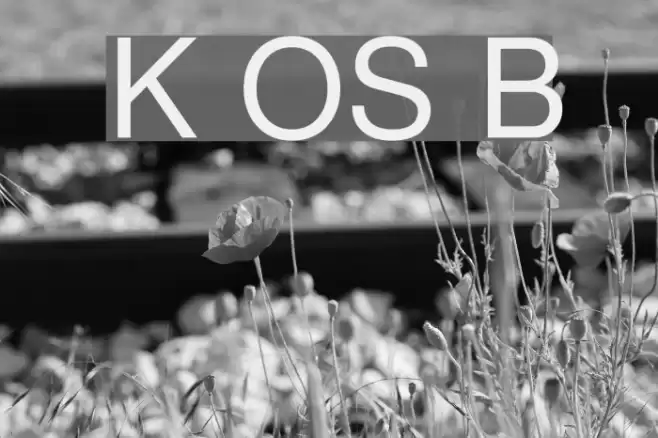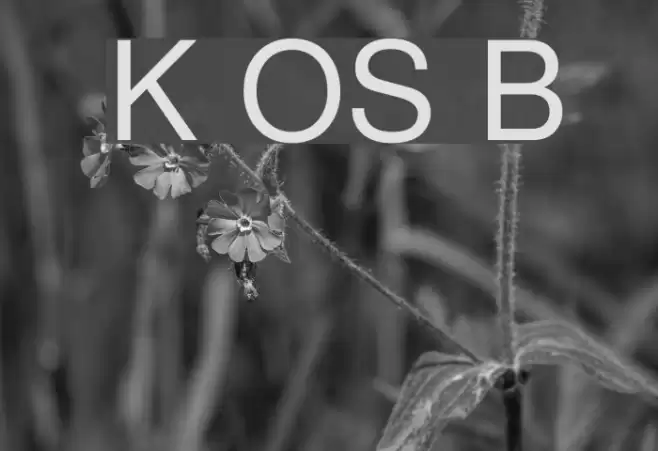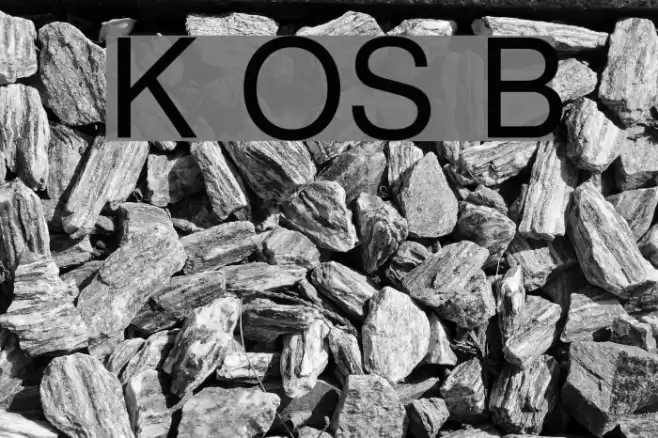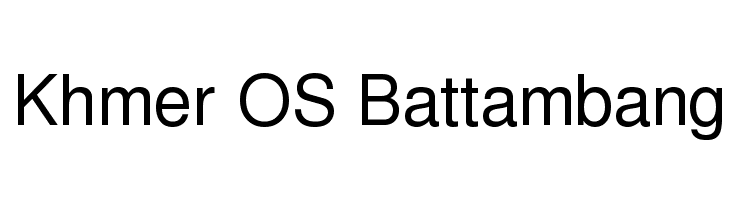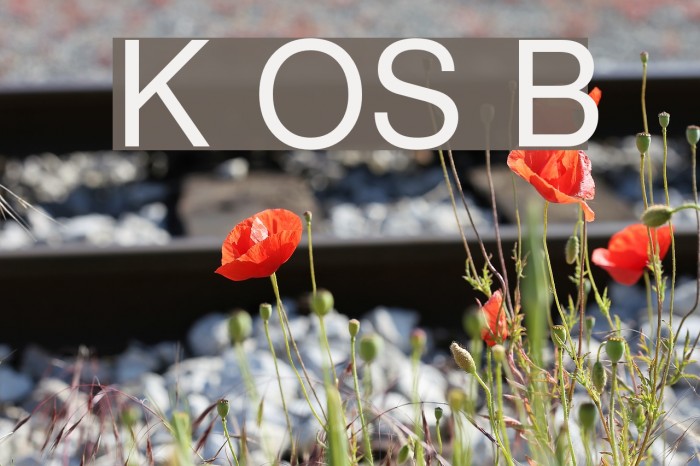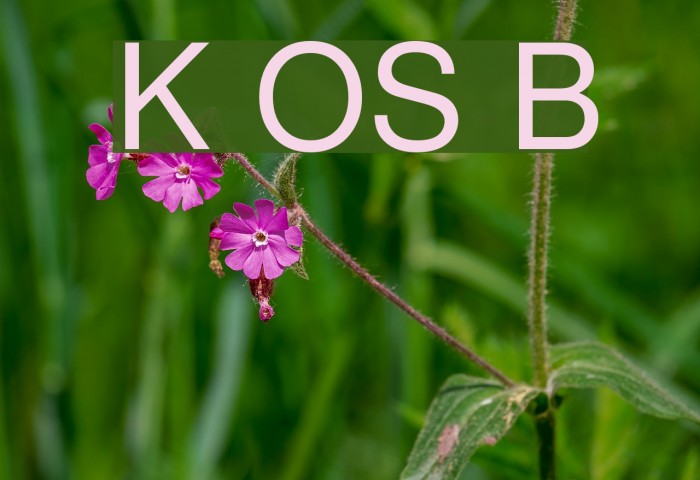
Khmer OS Battambang
This font exhibits a clean and modern sans-serif style, characterized by its simplicity and readability. The characters are uniformly structured with consistent stroke widths, providing a balanced and harmonious appearance. The uppercase letters are bold and assertive, while the lowercase letters maintain a friendly and approachable look. The numerals are clear and distinct, ensuring legibility in various contexts. Special characters are well-integrated, maintaining the overall aesthetic of the font. This typeface is versatile, suitable for both digital and print media, offering a professional yet contemporary feel.
A modern, clean sans-serif font with balanced stroke widths and excellent readability.